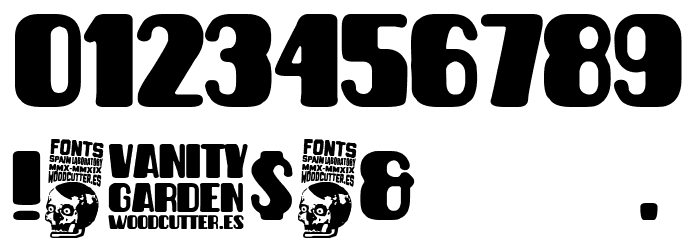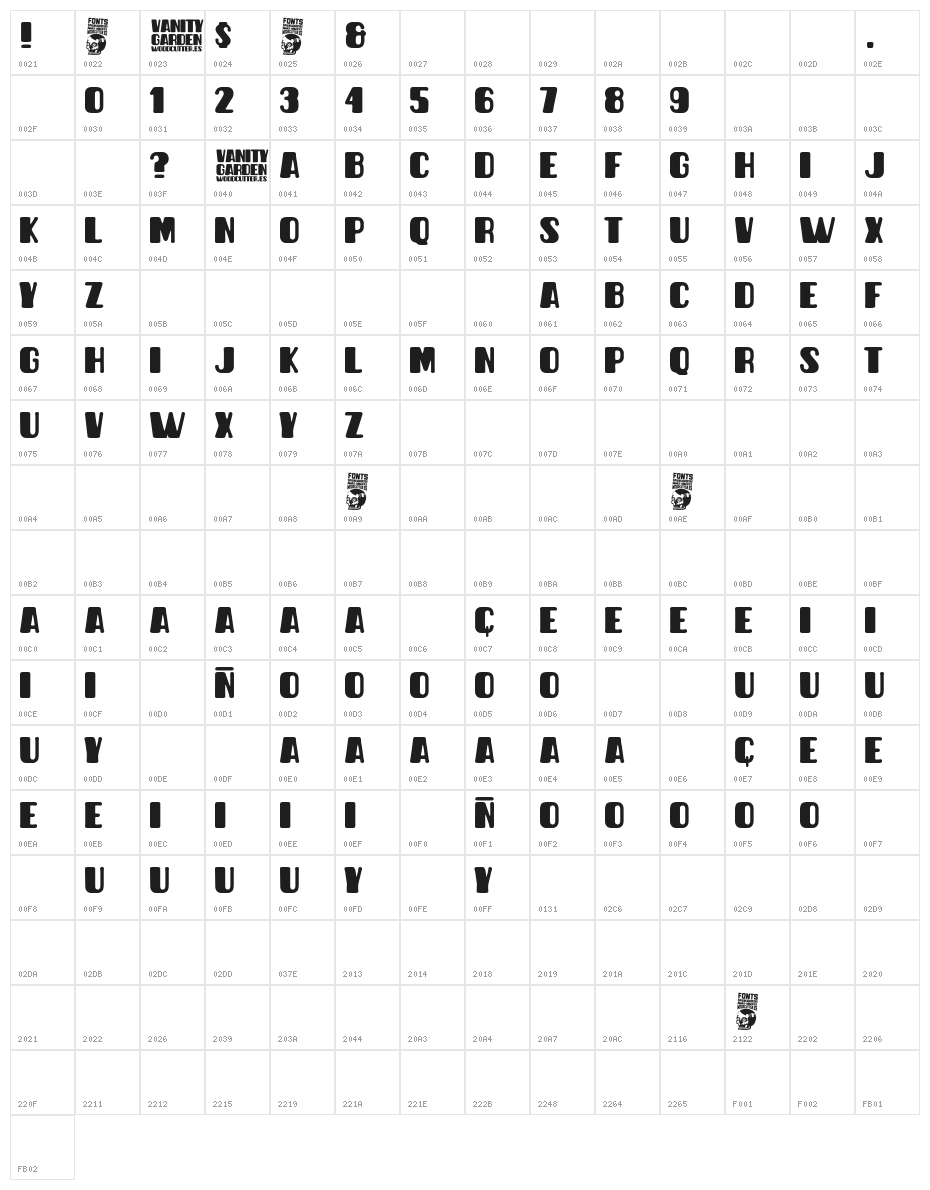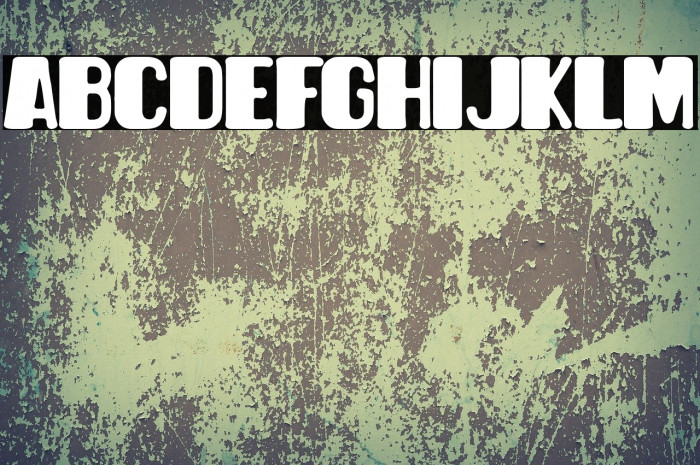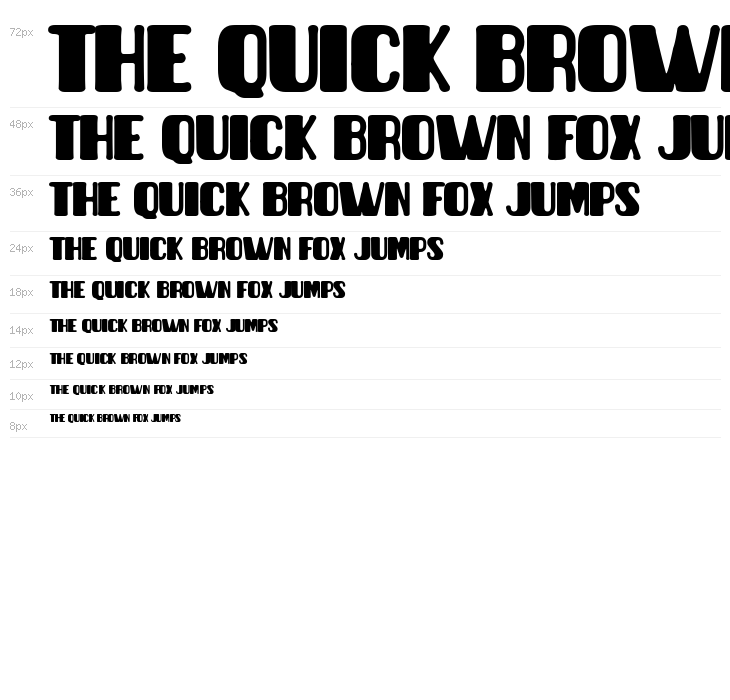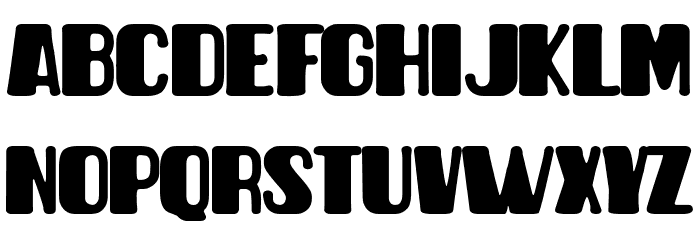
Vanity Garden Font
Vanity Garden Description
This font features bold, thick strokes with a distinct, playful style that captures attention. The characters are rounded and slightly condensed, giving them a robust and impactful appearance. The uppercase and lowercase letters maintain a consistent weight, contributing to a cohesive look. Numbers and special characters are designed with the same boldness, ensuring uniformity across all glyphs. The font's unique style makes it suitable for creative and eye-catching designs, with a touch of whimsy and boldness.
| Proposed Projects | Ideal for posters, logos, and branding projects that require a strong visual impact. |